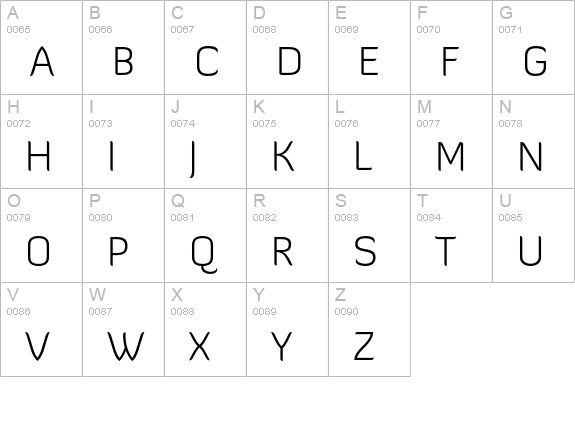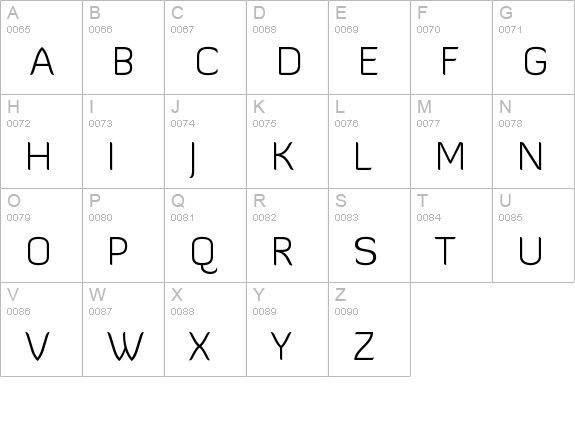
Diavlo Light Regular Font Details
Diavlo Light Regular is a refined, elegant variant in the Diavlo typeface family \xE2\x80\x94 well suited to elegant body text, refined sub-headings, and luxury branding.
Diavlo Light Regular font is a sleek and modern typeface that exudes elegance and sophistication. With its clean lines and subtle curves, this font is perfect for adding a touch of refinement to any design project. The light weight of the font gives it a delicate and airy appearance, making it ideal for use in headers, titles, and other prominent text elements. The best part? Diavlo Light Regular font is available for free download at FontsMarket.com. Whether you're working on a professional website, a creative project, or anything in between, this font is sure to elevate your design with its timeless appeal. Don't miss out on the opportunity to enhance your work with the beauty and versatility of Diavlo Light Regular font. Download it today and see for yourself the impact this font can have on your designs.